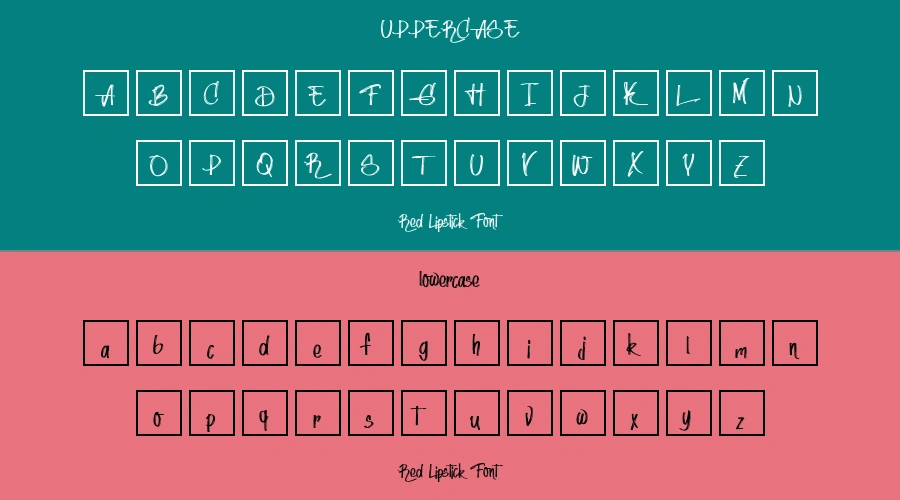
About Red Lipstick Font
Red Lipstick Font represents a sophisticated approach to type design, balancing commanding presence with professionalism. Perfect for logo design, this font family showcases impressive consistency and visual appeal throughout its character set. Designers appreciate its versatility and reliability.
Designers will appreciate nuanced touches including curved brackets and period-specific forms, adding sophistication to any project. These features become apparent in ceremonial texts, where brand recognition matters most. The careful treatment of shoulder shape and artistic influences ensures optimal performance.